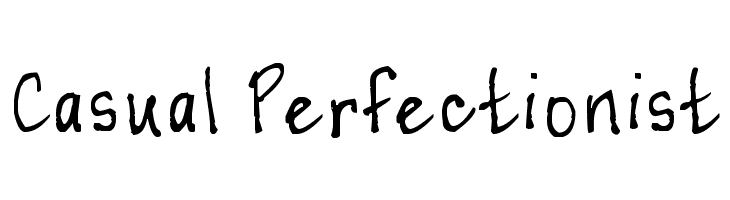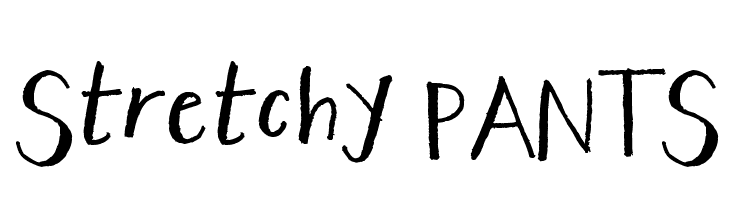
• Light at the end
A playful, informal handwritten font with a dynamic and lively feel.
• Light of the World
A playful, hand-drawn font with irregular strokes and a whimsical style.
• Soft Script
A playful and elegant script font with flowing, cursive letterforms and decorative details.
• Marmalade Toast
A playful, handwritten font with a casual and dynamic style.
• Casual Perfectionist
A bold, handwritten font with a casual and expressive style.
• JeansFont
A casual, handwritten font with a playful and informal style.
• Top Of The World
A lively, handwritten font with dynamic strokes and a playful, informal style.
• Stretchy PANTS
A playful, handwritten font with uneven strokes and a casual style.
• Enchanted Castle
A whimsical, hand-drawn font with irregular strokes and a playful charm.
• marivi handwriting
A playful, handwritten font with tall, narrow letters and a casual, organic style.